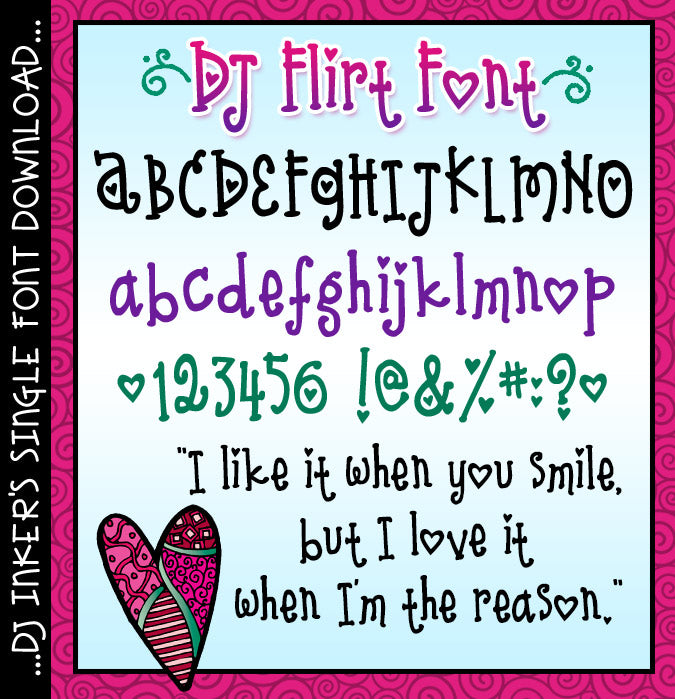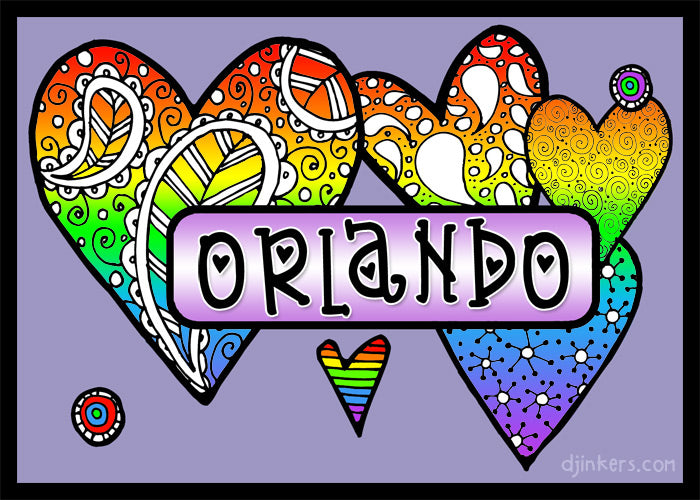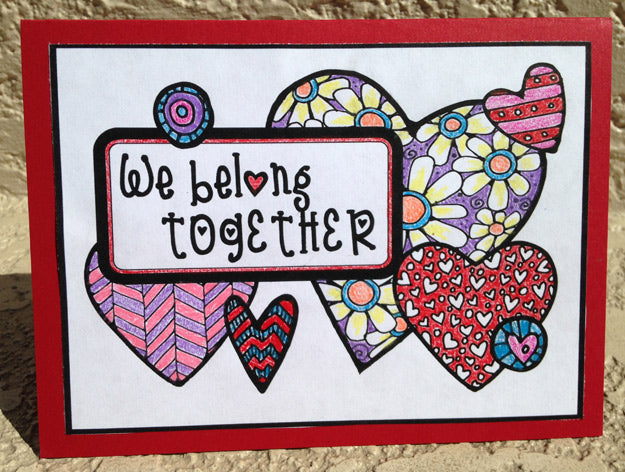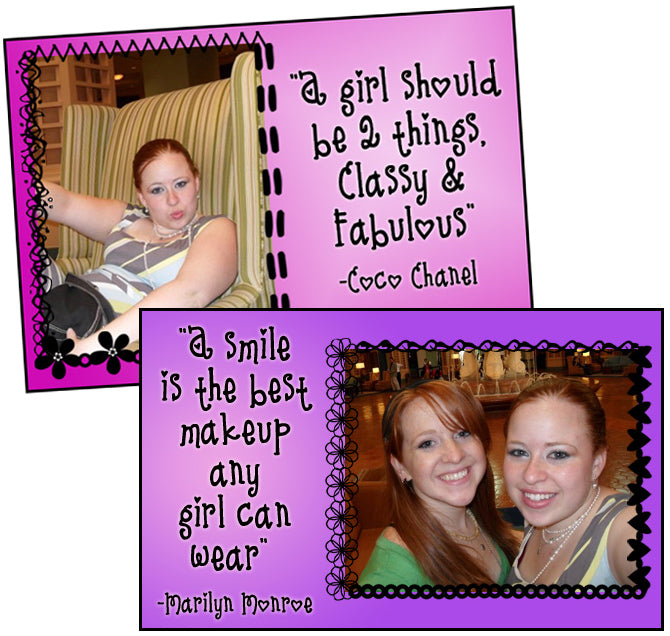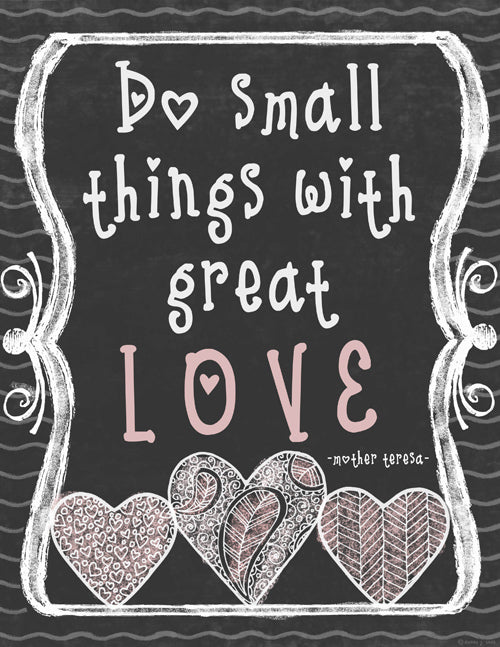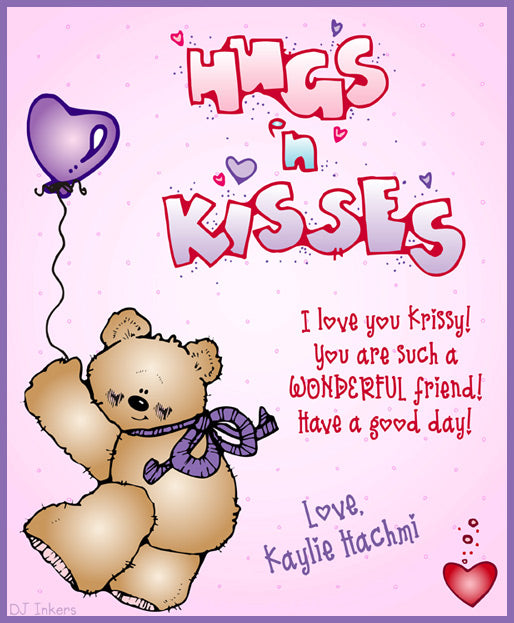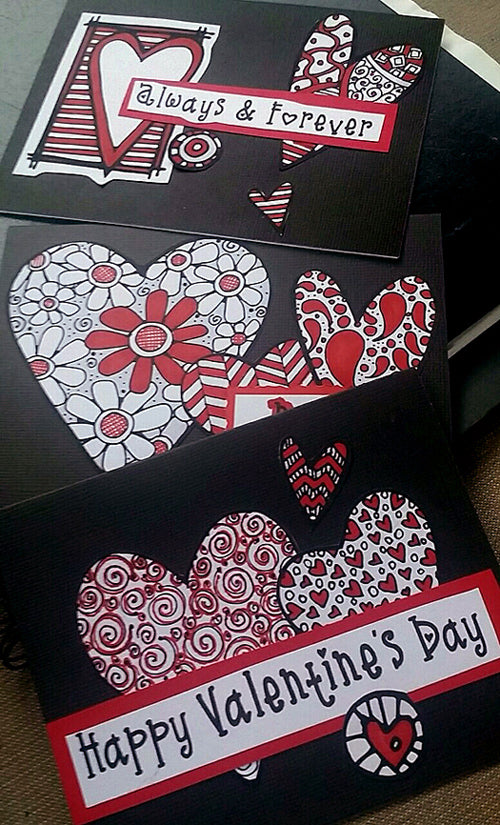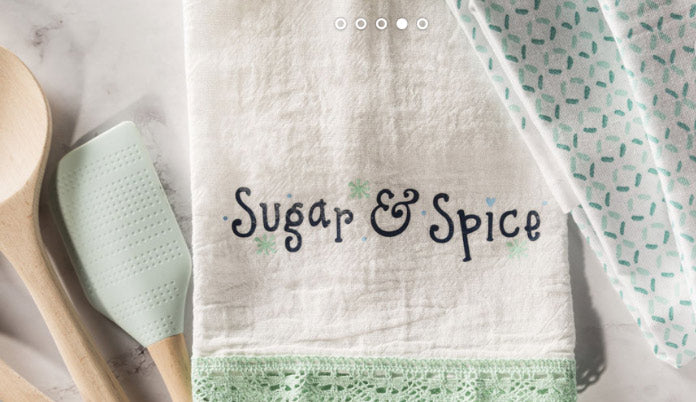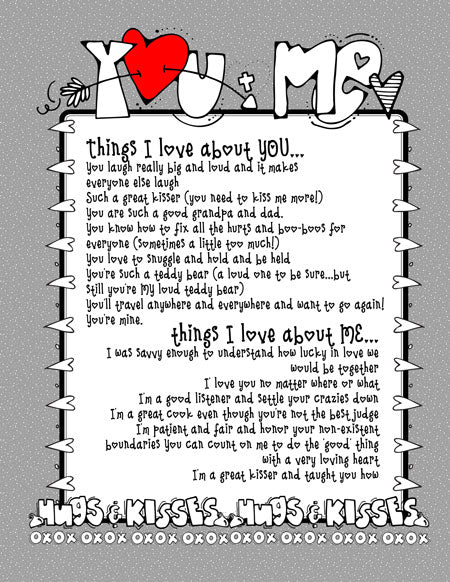
Jeanette E Love this font! It was perfect for Valentine's Day communication.
A Teacher's Heart I loved this product for my Valentine's Day activities I created.